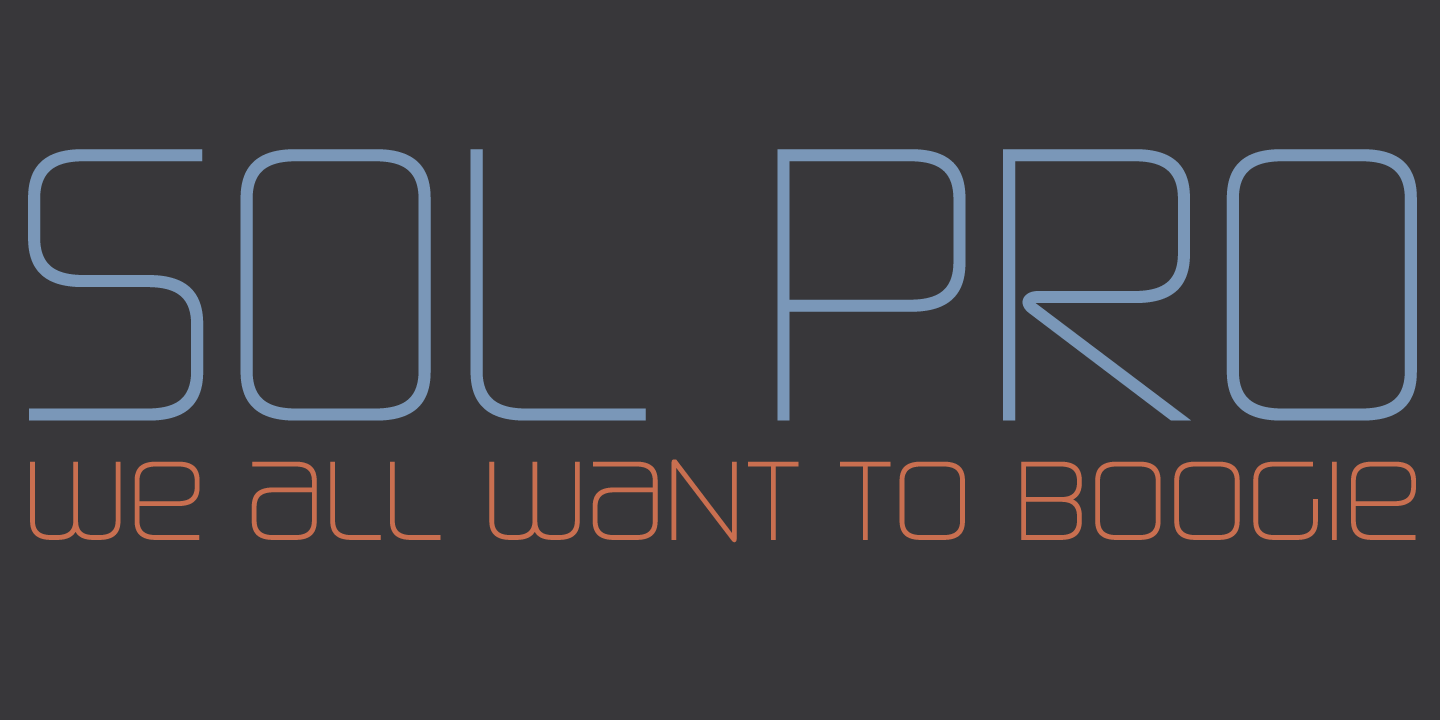
Sol Pro Font is perfect for solar energy company branding, renewable technology presentations, clean energy marketing materials, sustainable business logos, eco-friendly product packaging, environmental consulting firms, bright summer festival posters, outdoor adventure gear, vitamin D supplement branding, and sunshine-themed wellness products that require radiant energy and optimistic professionalism.
This font is exciting because it captures the brilliant energy and life-giving power of the sun with luminous letterforms that radiate warmth, vitality, and positive energy while maintaining professional sophistication. Sol Pro Font features bright, optimized construction and balanced proportions that embody the clarity and reliability of solar power while projecting the optimistic confidence essential for forward-thinking sustainable businesses.
Sol Pro Font family includes Regular, Bold, Light, Medium, Bright, Radiant, Energy, and Professional versions, plus solar symbols, energy icons, renewable technology elements, and sunshine ornaments that enhance the sustainable energy aesthetic and provide comprehensive design solutions for clean technology and environmental applications.
For sustainable energy and environmental design projects, Sol Pro Font Free Download delivers exceptional brightness and professional credibility. The font's radiant letterforms and solar character make it perfect for renewable energy companies, environmental organizations, and sustainable brands seeking to communicate innovation, reliability, and environmental responsibility. Its bright design appeals to eco-conscious audiences who value clean technology and sustainable solutions. The character set includes energy symbols and sustainability markers that meet environmental industry standards. Professional designers appreciate its ability to convey both environmental consciousness and professional expertise while maintaining excellent readability across clean technology marketing, sustainability reports, and renewable energy communications, making it essential for organizations that want to project the bright future of sustainable energy and communicate their commitment to environmental stewardship in today's climate-conscious marketplace.